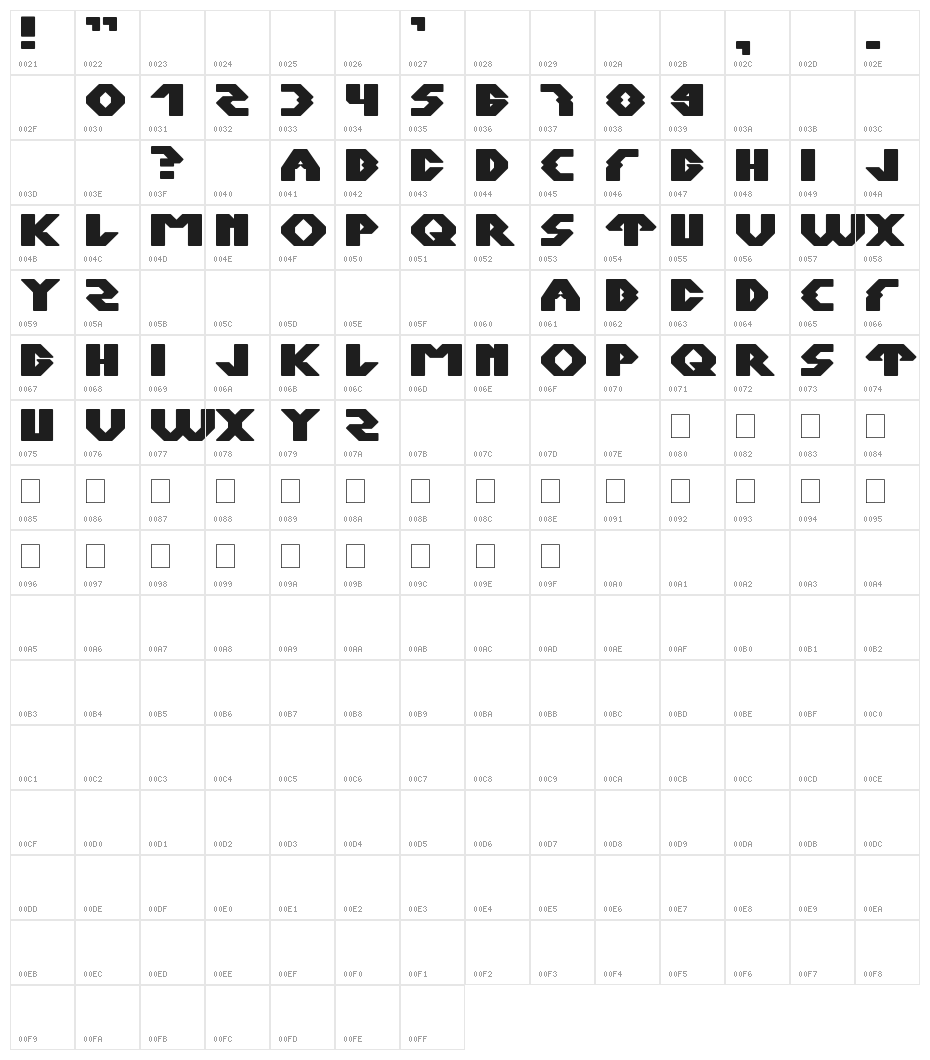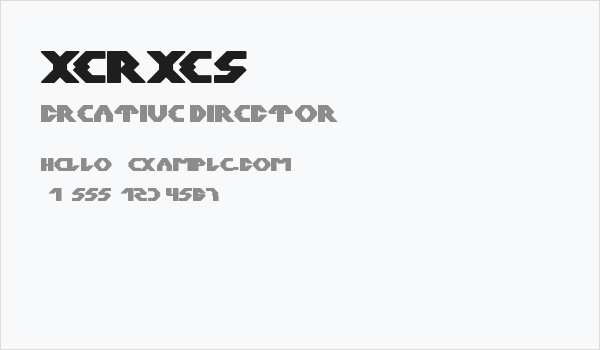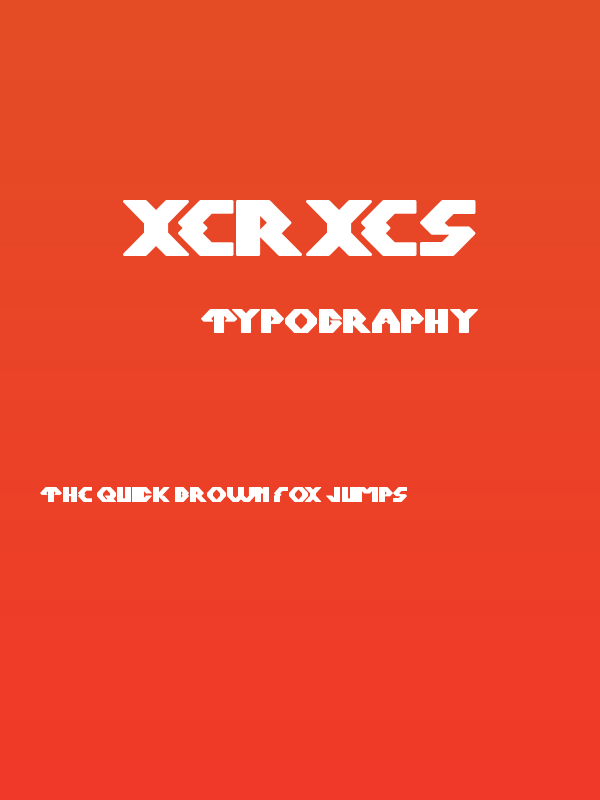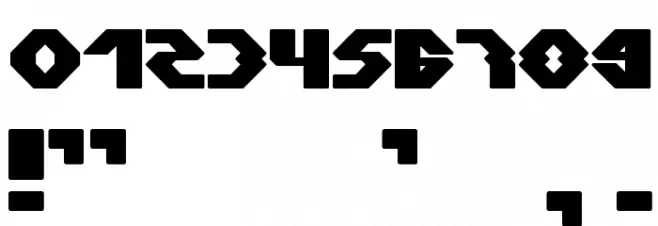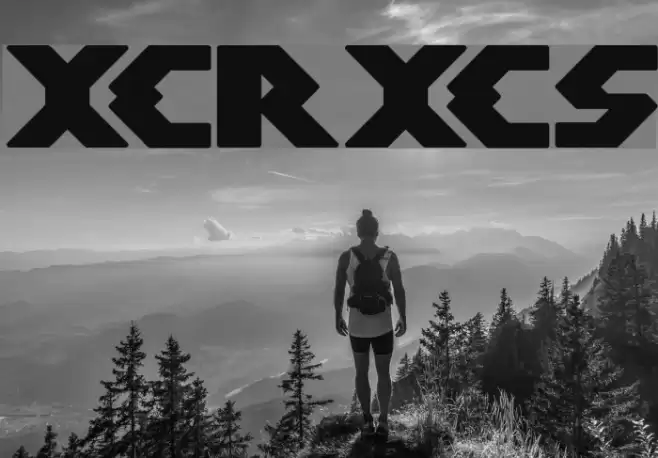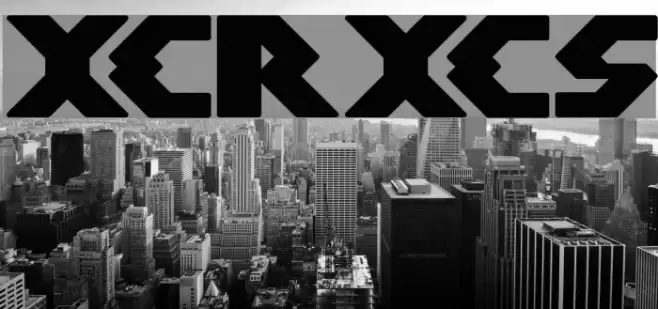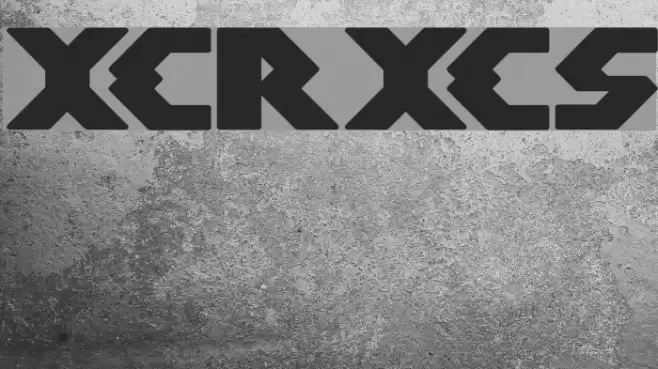
XERXES Font
XERXES Description
This font features a bold, geometric design with sharp angles and a futuristic aesthetic. The characters are constructed with thick, block-like shapes that give a sense of strength and modernity. The uppercase and lowercase letters maintain a consistent style, emphasizing angular cuts and a uniform thickness throughout. Numbers and special characters follow the same design principles, ensuring a cohesive look across all elements. The font's distinct style makes it stand out, ideal for projects that require a strong visual impact.
| Proposed Projects | Ideal for sci-fi themed posters, video game titles, branding for tech companies, and any project needing a modern, impactful typeface. |